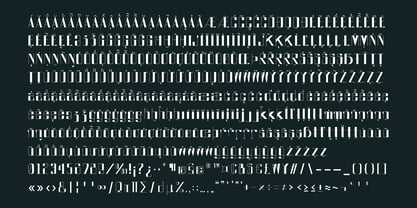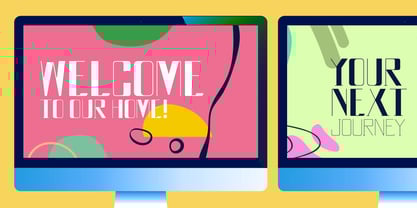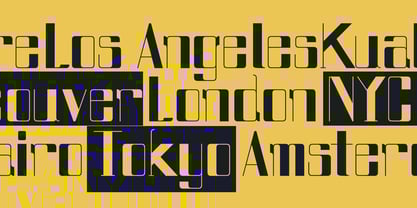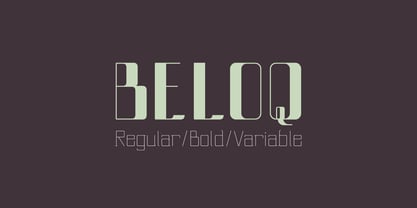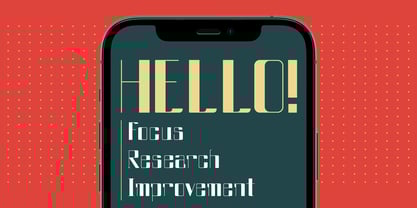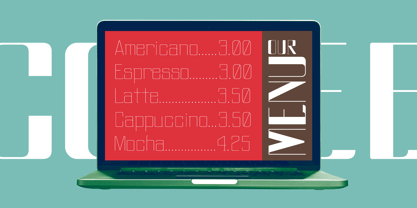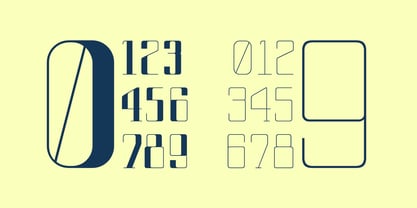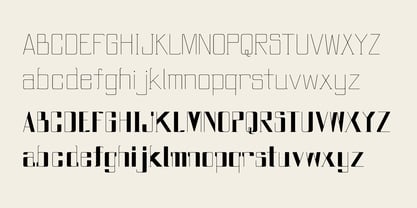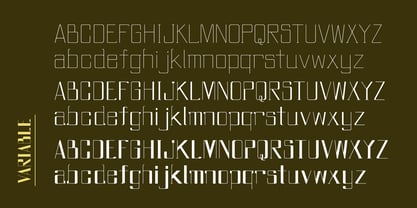
Beloq
by Outerend
The Beloq Font Family was designed by Taka Ikari and published by Outerend. Beloq contains 3 styles and family package options.
If you're looking for a unique font for your projects, "Beloq" could be the one! The slim modern digital look with a flavor of nostalgic art deco. This typeface work great with your websites, apps, logos, and many others. The variable version provides flexibility on thickness when you design.
Designers: Taka Ikari
Publisher: Outerend
Foundry: Outerend